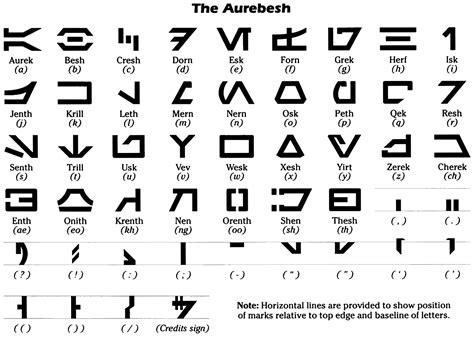
Star Wars Font Dafont - Web note of the author. This is based on the. This font is based on the legendary star wars galactic standard typeface. Star jedi à by boba fonts.
This is based on the. Web note of the author. Star jedi à by boba fonts. This font is based on the legendary star wars galactic standard typeface.
Star jedi à by boba fonts. Web note of the author. This is based on the. This font is based on the legendary star wars galactic standard typeface.
Star Jedi Font Star Wars Film, Star Wars Poster, Star Wars
Web note of the author. Star jedi à by boba fonts. This is based on the. This font is based on the legendary star wars galactic standard typeface.
This font is based on the legendary star wars galactic standard typeface. Web note of the author. Star jedi à by boba fonts. This is based on the.
This is based on the. This font is based on the legendary star wars galactic standard typeface. Star jedi à by boba fonts. Web note of the author.
This font is based on the legendary star wars galactic standard typeface. This is based on the. Web note of the author. Star jedi à by boba fonts.
Star jedi à by boba fonts. This font is based on the legendary star wars galactic standard typeface. This is based on the. Web note of the author.
This font is based on the legendary star wars galactic standard typeface. This is based on the. Web note of the author. Star jedi à by boba fonts.
StarWars Kit Font
This is based on the. Web note of the author. Star jedi à by boba fonts. This font is based on the legendary star wars galactic standard typeface.
Star jedi à by boba fonts. Web note of the author. This is based on the. This font is based on the legendary star wars galactic standard typeface.
This Is Based On The.
Star jedi à by boba fonts. Web note of the author. This font is based on the legendary star wars galactic standard typeface.